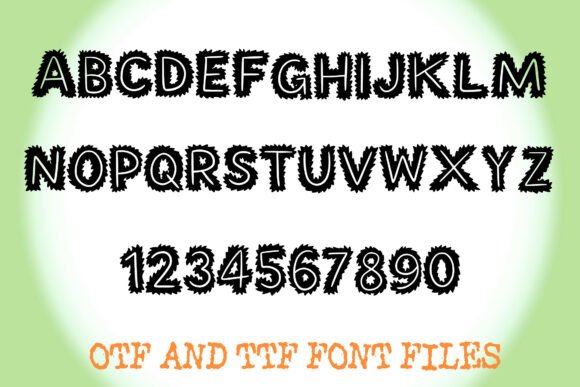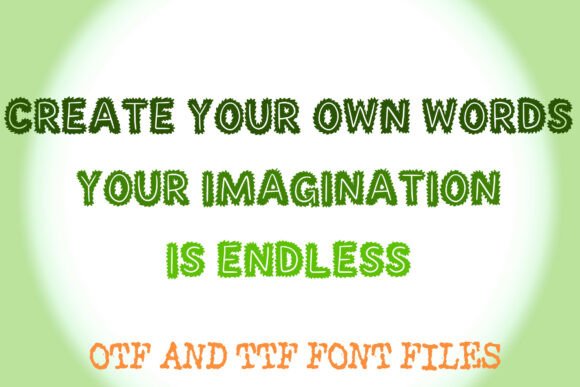
Introduction to Furry Gremlin Font
Who hasn’t stared blankly at a blank design canvas, desperately seeking that one perfect element to bring their creative project to life? For designers, the search for that elusive spark of inspiration can be a daunting task. But what if that spark is waiting for you in the unlikeliest of places – like a font that’s bursting with wild energy and playful charm?
Enter the Furry Gremlin Font, a bold and quirky display font that’s sure to add instant character and fun to any design. With its whimsical “fur” wrapping each letter, this font is the perfect choice for Halloween graphics, monster-themed designs, kids’ parties, and anything that needs a mischievous touch. Whether you’re a seasoned designer or just starting out, the Furry Gremlin Font is a valuable addition to your design resource arsenal.
Key Features of Furry Gremlin Font
- Unique, hand-drawn design with a playful, mischievous feel, perfect for creative projects.
- Perfect for use in digital art, graphic design, and creative projects where a whimsical, furry gremlin-inspired design is desired.
- Can be used in a variety of contexts, from children’s book illustrations to advertising and marketing materials, adding a touch of playfulness and humor.
Honest Review: Furry Gremlin Font
What I love about the Furry Gremlin Font is its high quality and quirky personality. The design is playful and fun, making it perfect for creative projects that require a touch of whimsy. ✨ The font is also available with a transparent background, which makes it super easy to use in various design scenarios.
Here are some of the things that work well with the Furry Gremlin Font:
- Quirky and playful personality that adds a touch of whimsy
- Available with a transparent background for easy use
However, I do have a few limitations to note: ⚠️ the font might be a bit too playful for some projects, and it may not be suitable for formal or corporate designs. Additionally, the font’s character set is limited, which might be a drawback for some designers.
Overall, I think the Furry Gremlin Font is a fantastic addition to any designer’s toolkit. It’s a high-quality, unique design resource that’s perfect for creative projects that require a touch of personality. Just be mindful of its limitations, and you’ll be golden!
Tips for Getting the Most Out of Furry Gremlin Font
To get the most out of the Furry Gremlin Font, try using it in combination with other design elements, such as bold lines or bright colors. You can also experiment with different font sizes and styles to create a unique and eye-catching design.
The Furry Gremlin Font is perfect for creative projects, such as graphic design, digital art, or even tattoo design. It’s also great for adding a touch of whimsy to your business branding or marketing materials.
Q: Is the Furry Gremlin Font a high-quality design resource?
Yes, the Furry Gremlin Font is a high-quality design resource. It features a unique and playful design style, making it perfect for creative projects that require a fun and whimsical touch. The font is also highly customizable, allowing you to adjust the size, color, and style to suit your design needs.